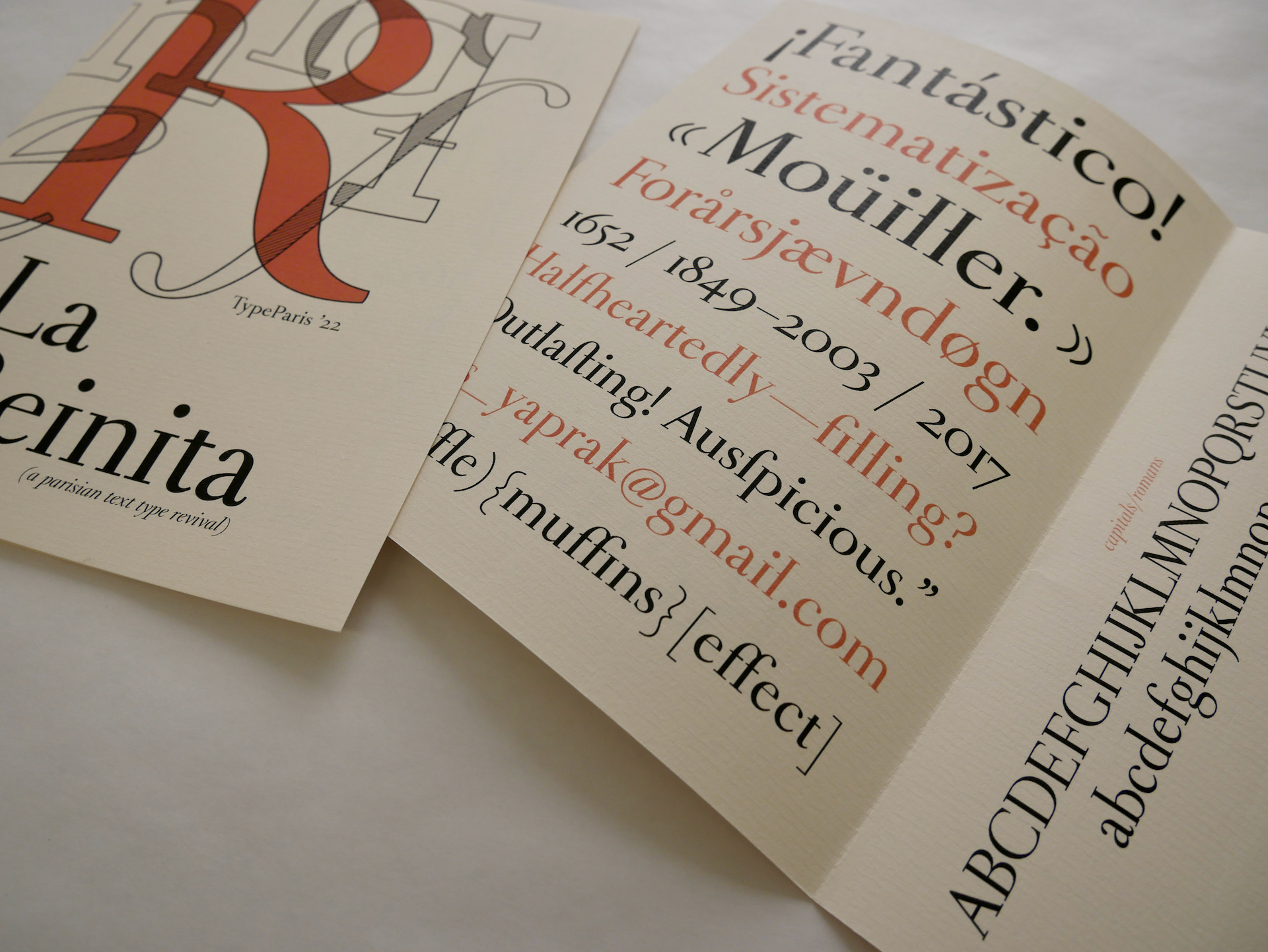
La Reinita
La Reinita is an ode to the typographic history of Paris. A revival of the Romain du Roi, this typeface builds on this unconventional structure to create a design that is as elegant as it is quirky. The Romain du Roi is often dismissed as quaint, over-rationalized, and anachronistic. Although the origins of these bizarre romans are lost in the sands of time, many features of the design are still as relevant as ever: the elemental forms evoke modernist motifs; the modular components reflect the efficiency of the digital world; the irregularities evoke a world that was as much in flux then as it is now.
Instead of disregarding these eccentricities, La Reinita embraces and integrates them into a cohesive system that expands over axes of weight and contrast, expanding the typeface’s utility—and uncovering some unexpected surprises. From the most delicate display type to a chunky slab serif; from stately romans to playful bold weights, La Reinita’s strange, baroque basis gives rise to a design that encompasses a greater range of human experience.
There is a saying: “don’t throw the baby out with the bathwater.” Sometimes, in haste, one discards something of value, even out of positive intent. This saying rings especially true of my experience developing La Reinita. Even though I selected the Romain du Roi as the subject of my study, I thought it was ridiculous and unwieldy. Noticing that I was too eager to disregard some of the essential features of the typeface, my instructors encouraged me to stick close to the source material. Within two weeks, I had grown thoroughly accustomed to the Romain du Roi’s charms. Some of the most unconventional inconsistencies in the typeface had become the building blocks of the alphabet. The acceptance and study of these features led me to a newfound appreciation for the Jaugeon Committee’s brainchild and, by contrast, for the structure of contemporary letterforms.
Another instance where this saying held true was my struggle to expand on the typeface in a meaningful manner. I was both excited and daunted by the relatively untapped realm of possibilities that exist within the niche genre of a geometric, bilateral serif typeface. Seriously: who makes such a thing? More importantly, what kinds of possibilities could be derived from this template? In my dogged quest to uncover the inner workings of the Romain du Roi, I turned my back on some possibilities that would have pushed the project into more interesting territory. The moral: be always open to the process and let the project have a greater say in its own design. Sticking too close to a predetermined expectation can lead to a dull result.
That being said, La Reinita pushed me to conceptualize more, draw, and solve problems faster than I thought possible. If it hadn’t been for the encouragement of TypeParis, I never would have thought of creating a monolinear, geometric slab serif based on a baroque template, nor would I have ever considered making a fatface in the same design space. Technically, managing 5 different designs within the same Glyphs file brought me far outside of my comfort zone. Two days before delivery, I was confronted with a rat’s nest of a file that made almost no sense to me. Let’s say that, with help from the instructors, I got really fast at troubleshooting interpolation issues.
Overall, this project taught me to simplify, loosen up, and work smarter—not harder: that type design is a conversation, not a monologue.